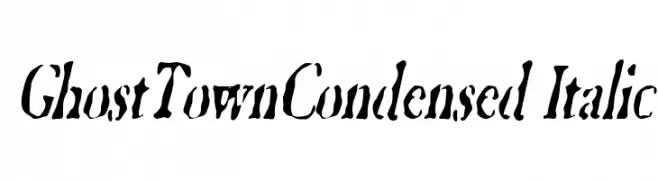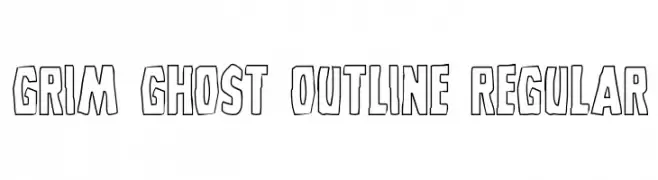
A hand-drawn, sketch-like font with swirling, textured lines and an artistic flair.
( Fonts by www.typodermicfonts.com - Ray Larabie )
A playful, ghost-themed decorative font with a whimsical and spooky style.
( Fonts by Jens R. Ziehn - www.filmhimmel.com )
A bold, horror-themed font with dripping, jagged edges.
( Fonts by Loraine Wauer Ferus www.billybear4kids.com )
A playful font with characters inside friendly ghost shapes, perfect for whimsical designs.
( Fonts by Steve Ferrera )
A spooky, decorative font with jagged edges and eerie cutouts, perfect for Halloween themes.
( Fonts by www.dcoxy.com )
A bold, spooky font with a playful, hand-drawn outline.
A playful, outlined font with a whimsical, hand-drawn style.
An eerie, wavy stencil font perfect for spooky designs.